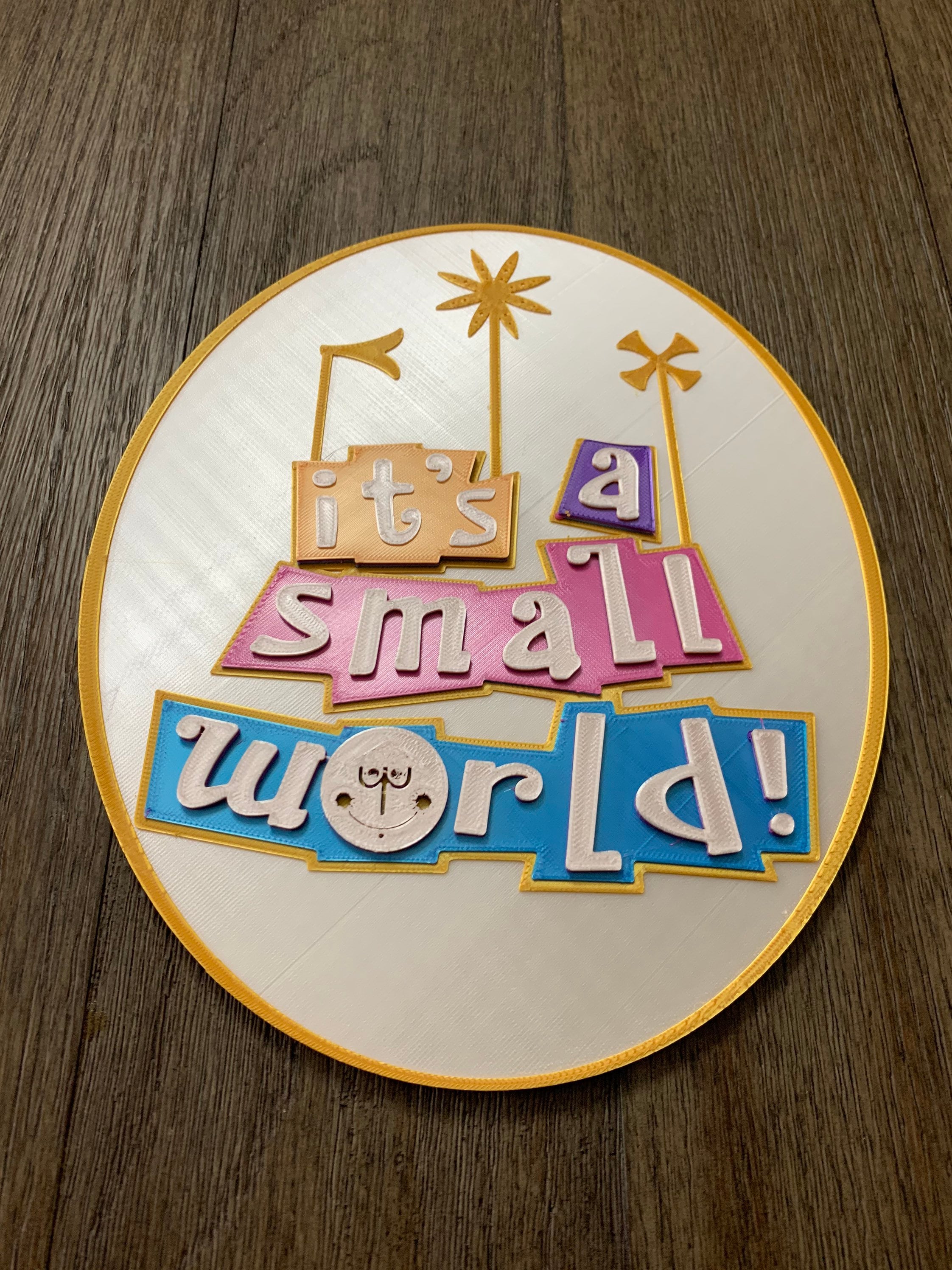
Small World Font
Small World Font - Small world by a playful, handwritten font with smooth curves and a casual style. For whatever reason, despite my googling skills, i cannot figure out a font that's similar to the sign for it's a small world in.
For whatever reason, despite my googling skills, i cannot figure out a font that's similar to the sign for it's a small world in. Small world by a playful, handwritten font with smooth curves and a casual style.
Small world by a playful, handwritten font with smooth curves and a casual style. For whatever reason, despite my googling skills, i cannot figure out a font that's similar to the sign for it's a small world in.
Walt disney quote and signature tattoo in it’s a small world font
For whatever reason, despite my googling skills, i cannot figure out a font that's similar to the sign for it's a small world in. Small world by a playful, handwritten font with smooth curves and a casual style.
Small world by a playful, handwritten font with smooth curves and a casual style. For whatever reason, despite my googling skills, i cannot figure out a font that's similar to the sign for it's a small world in.
For whatever reason, despite my googling skills, i cannot figure out a font that's similar to the sign for it's a small world in. Small world by a playful, handwritten font with smooth curves and a casual style.
Small world by a playful, handwritten font with smooth curves and a casual style. For whatever reason, despite my googling skills, i cannot figure out a font that's similar to the sign for it's a small world in.
TXT Small World Font
For whatever reason, despite my googling skills, i cannot figure out a font that's similar to the sign for it's a small world in. Small world by a playful, handwritten font with smooth curves and a casual style.
Small world by a playful, handwritten font with smooth curves and a casual style. For whatever reason, despite my googling skills, i cannot figure out a font that's similar to the sign for it's a small world in.
For Whatever Reason, Despite My Googling Skills, I Cannot Figure Out A Font That's Similar To The Sign For It's A Small World In.
Small world by a playful, handwritten font with smooth curves and a casual style.